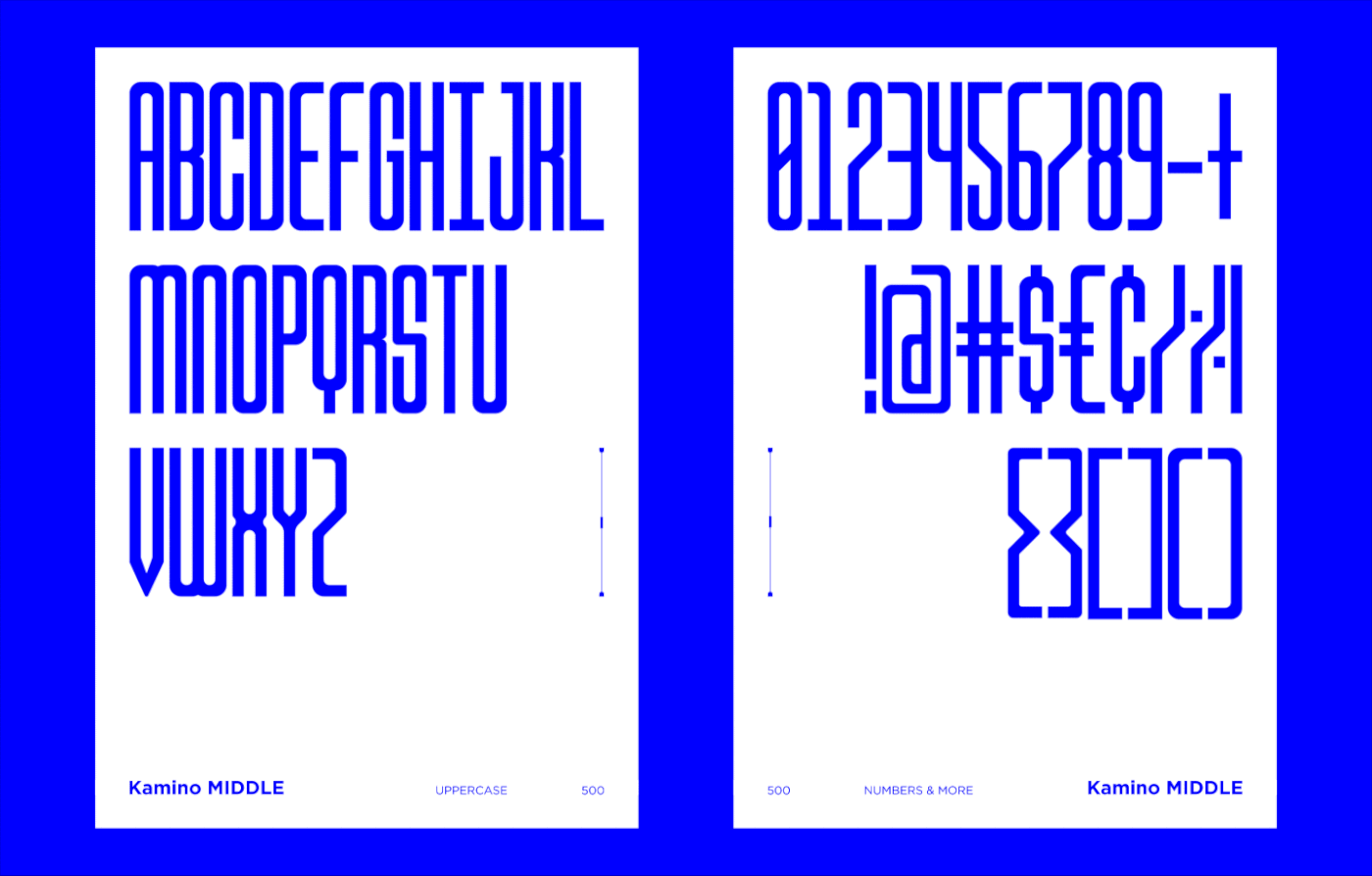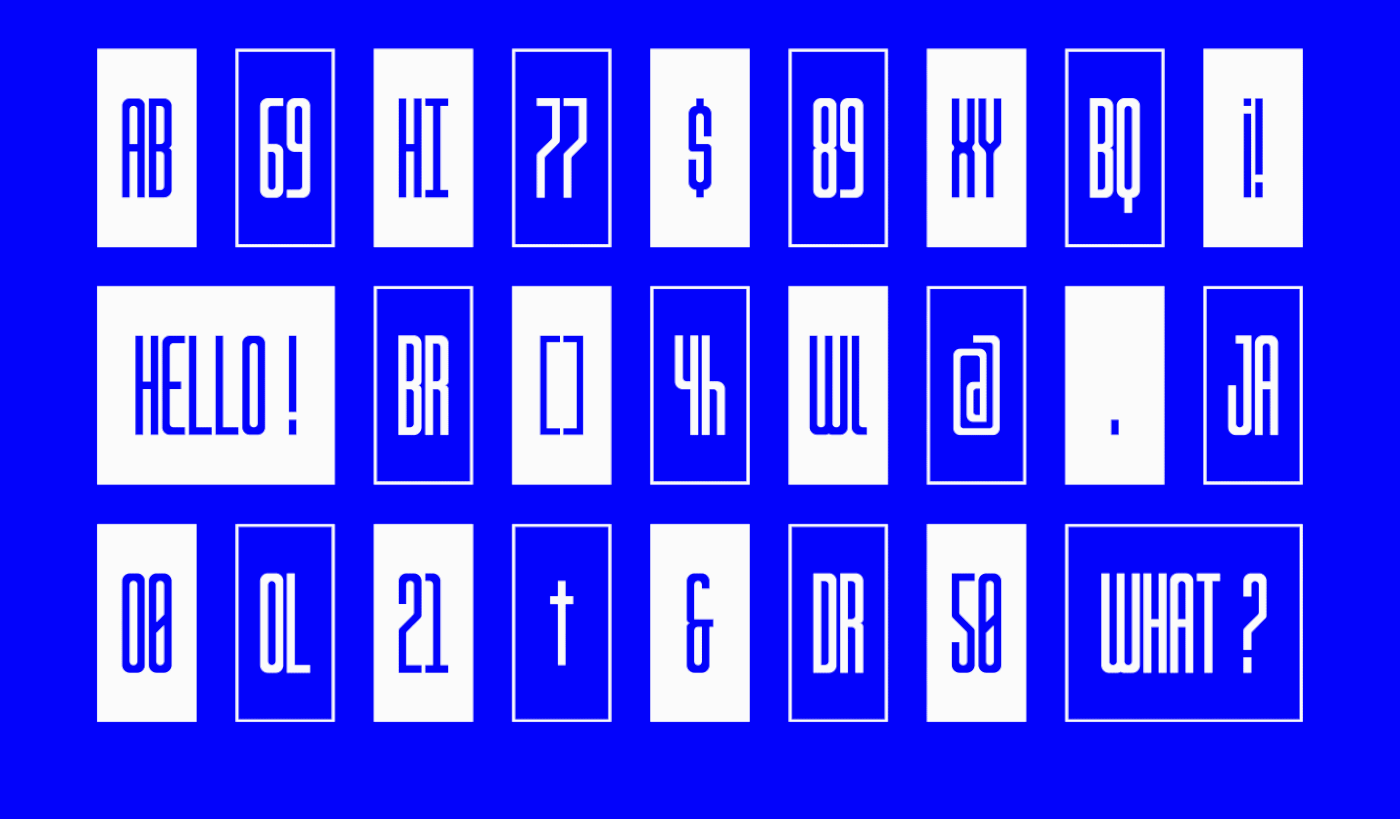
This font is made with a shape that sticks out more to the classics. Kamino is a condensed variable font with rounded corners complemented by sharp lines and angles. It’s a versatile typeface that’s suitable for bold headline titles, posters, sport brands and more.